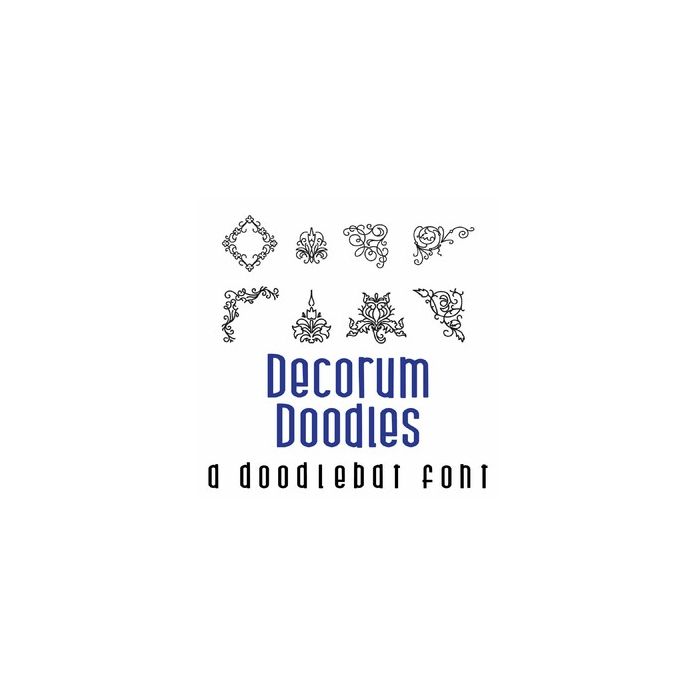
This fun doodlebat font features 26 doodle style flourishes and corners. Perfect for cards, gifts, decor, crafts, scrap book pages, planner stickers and more!